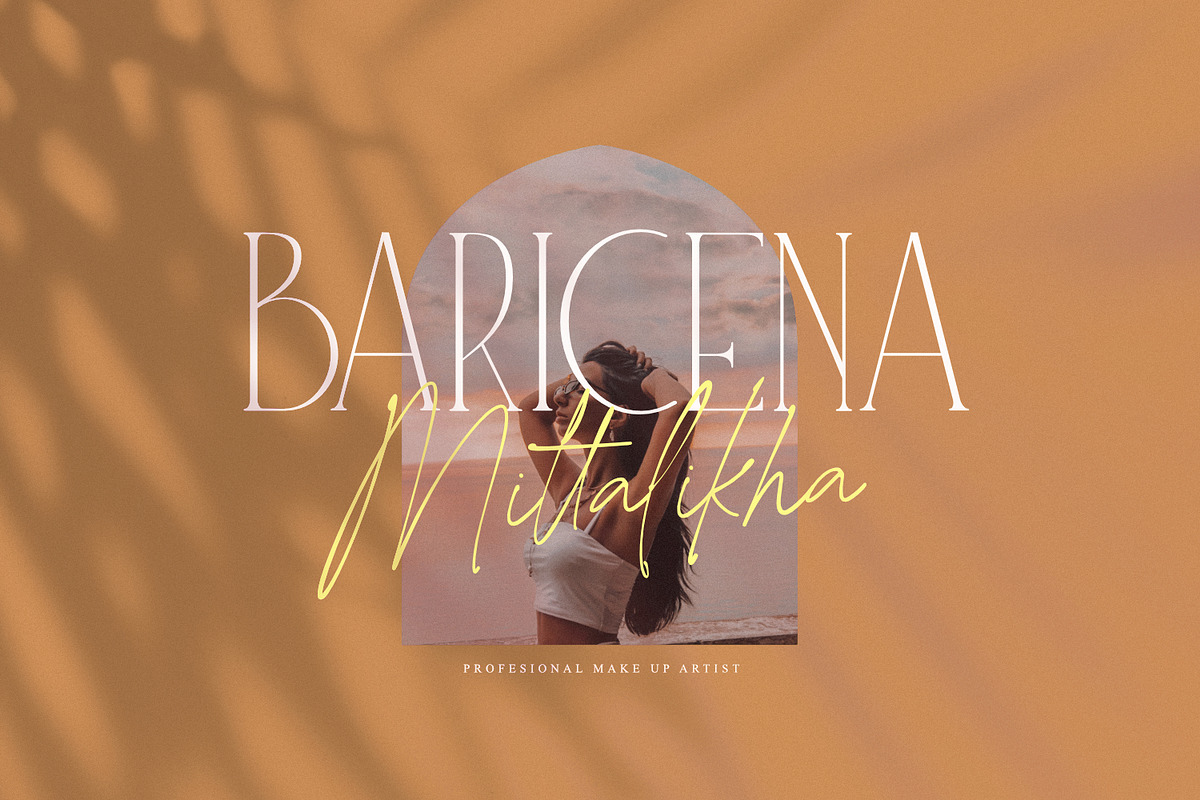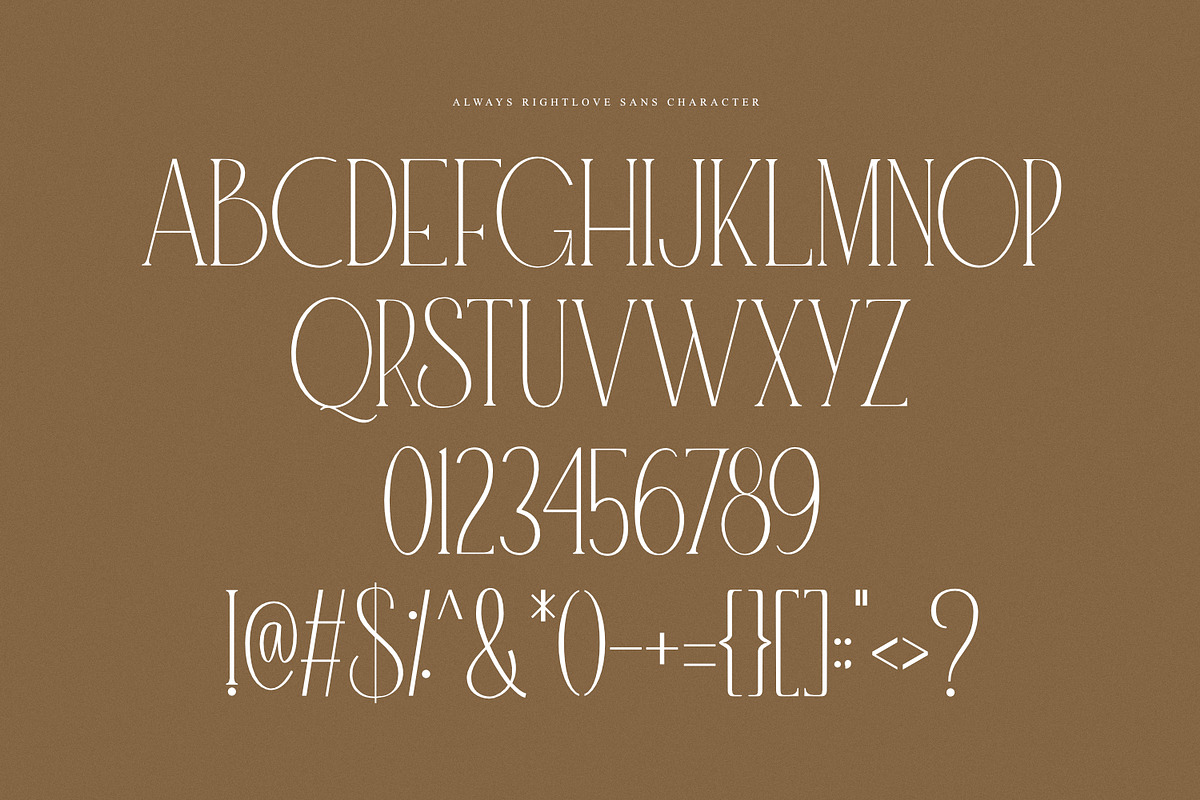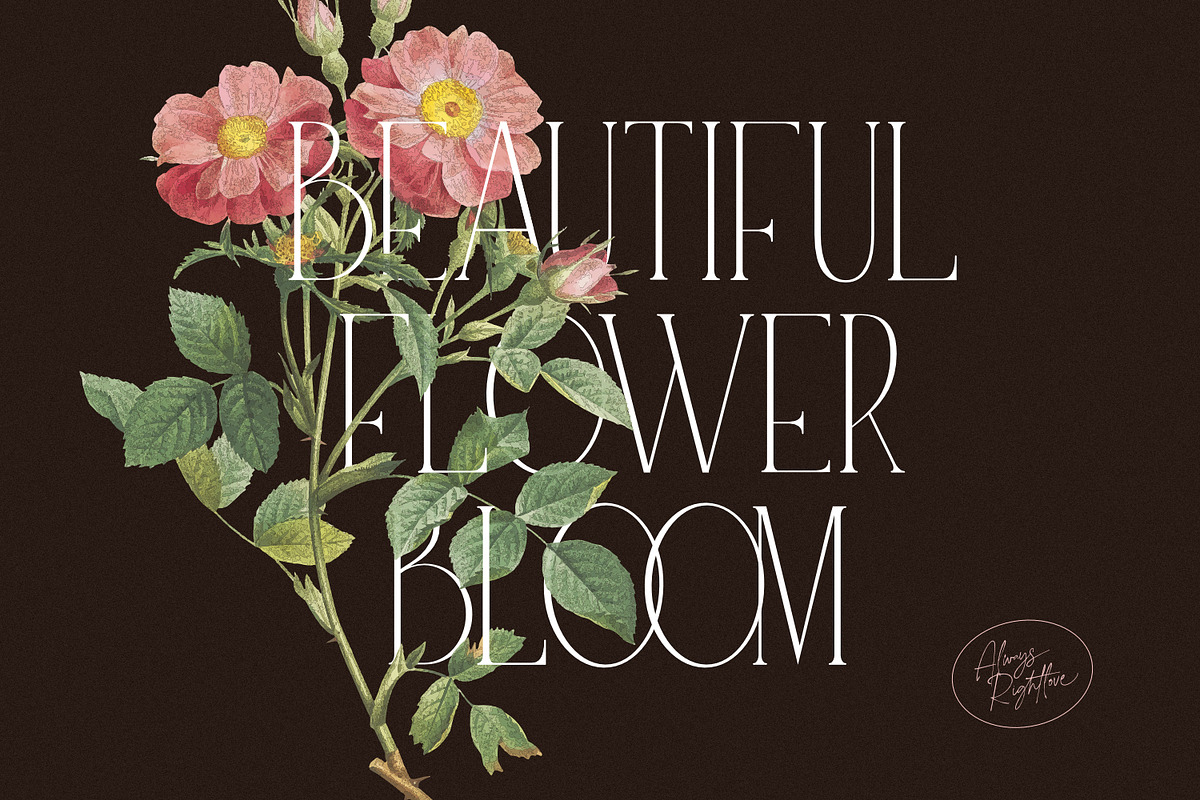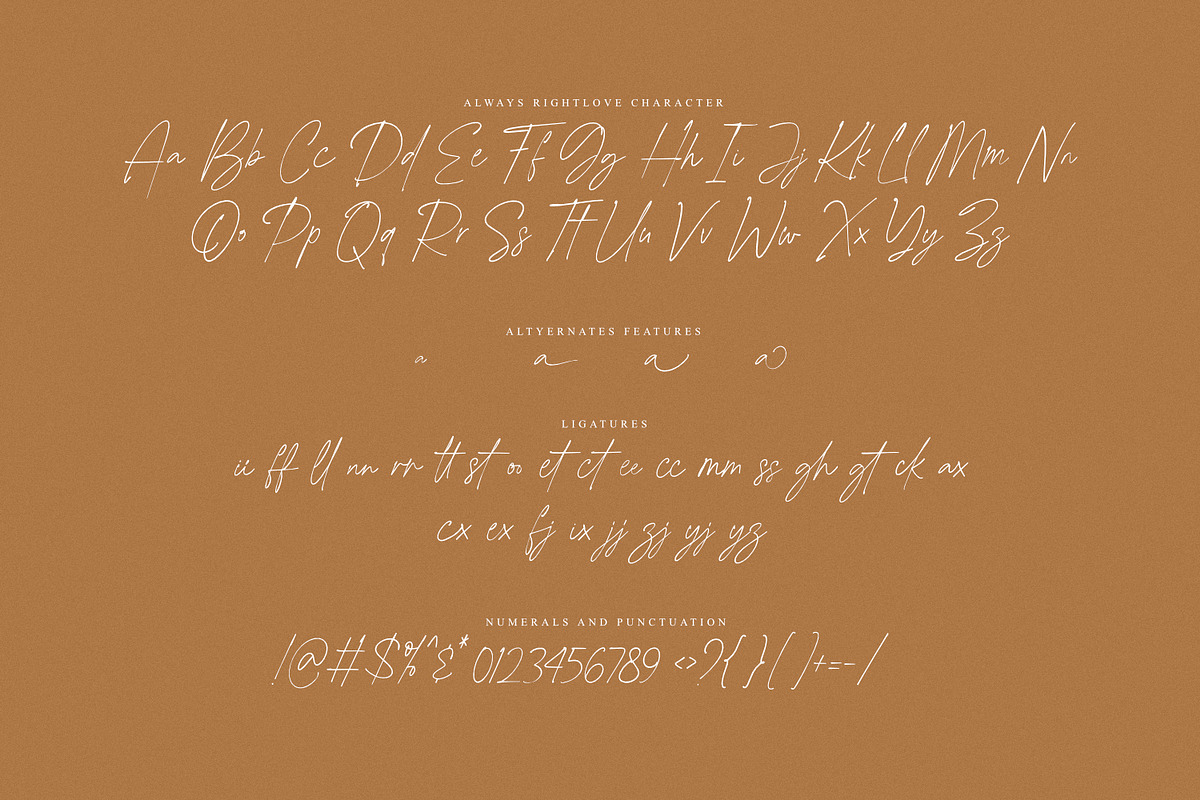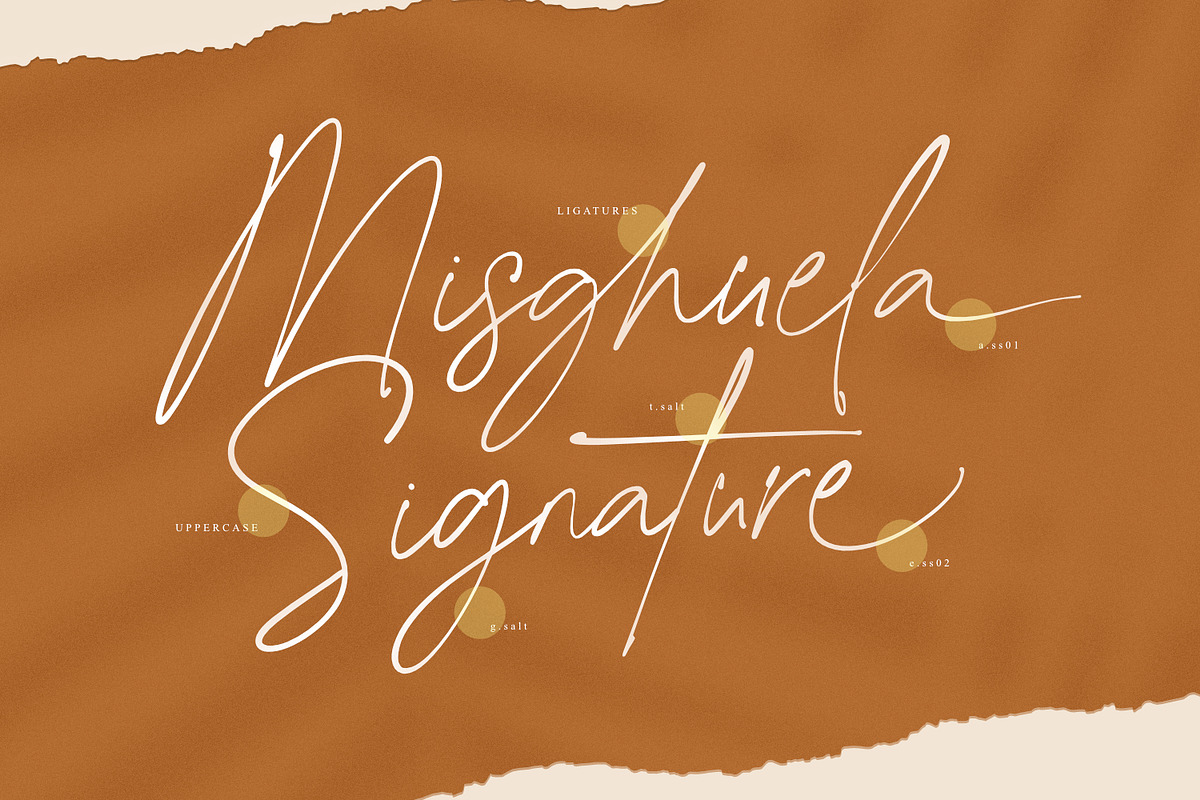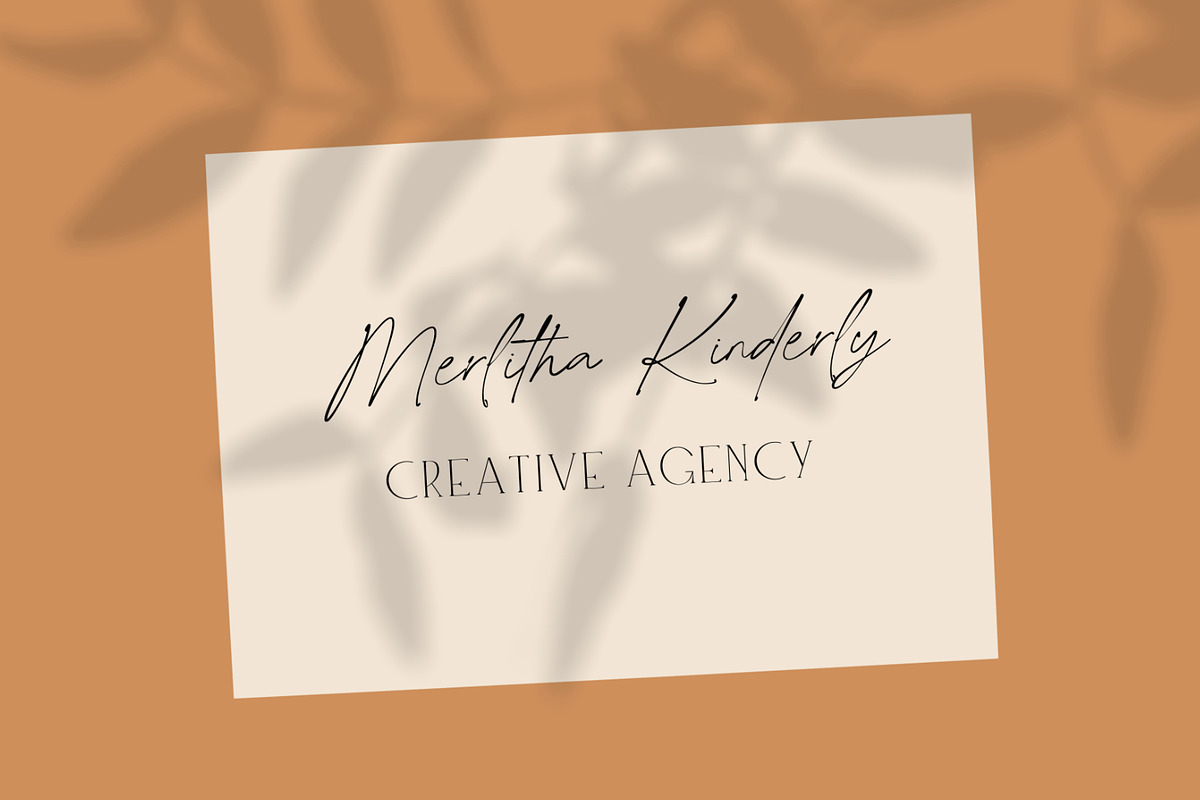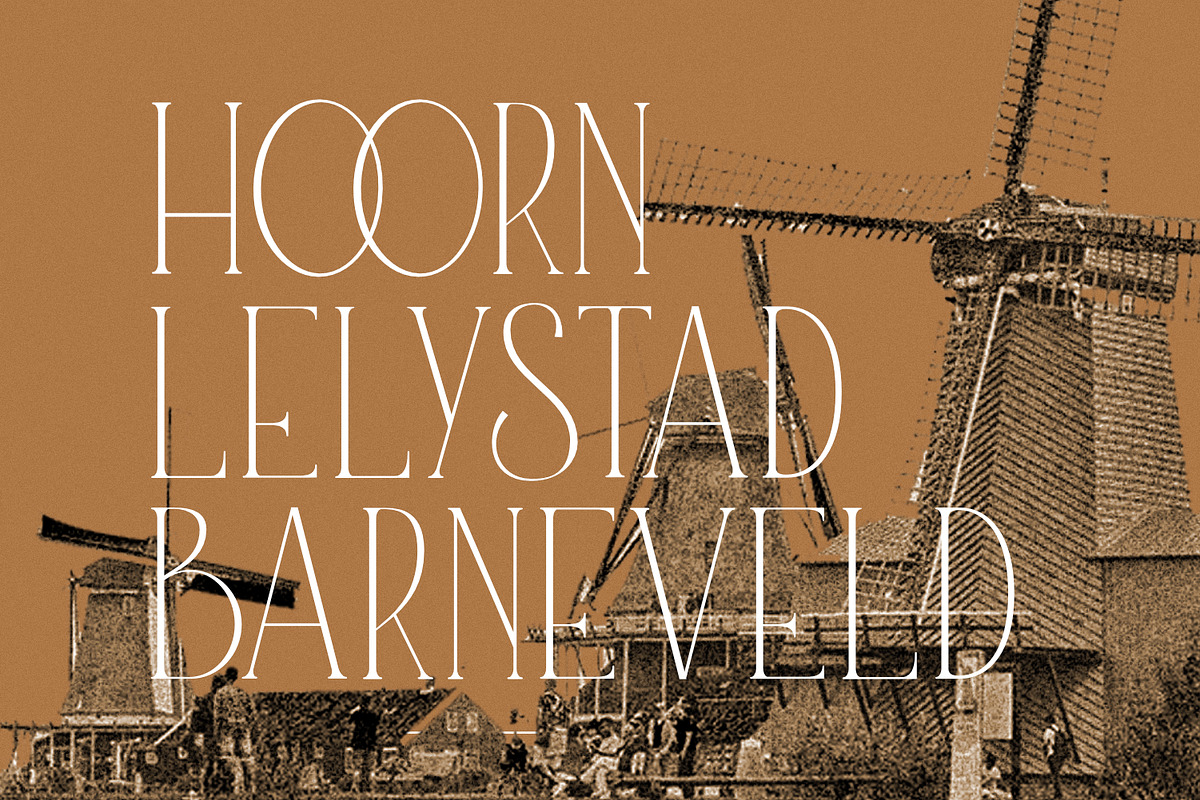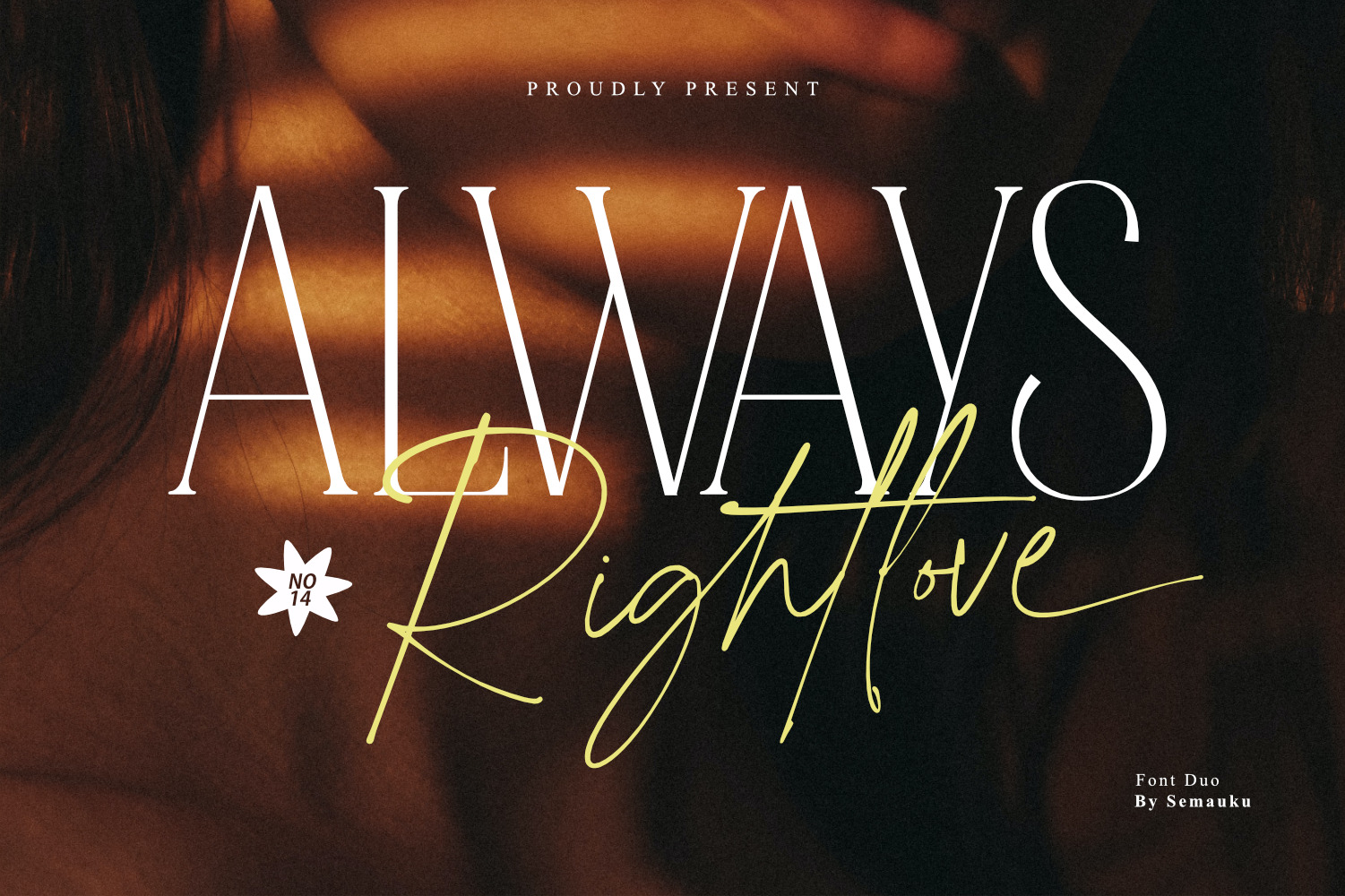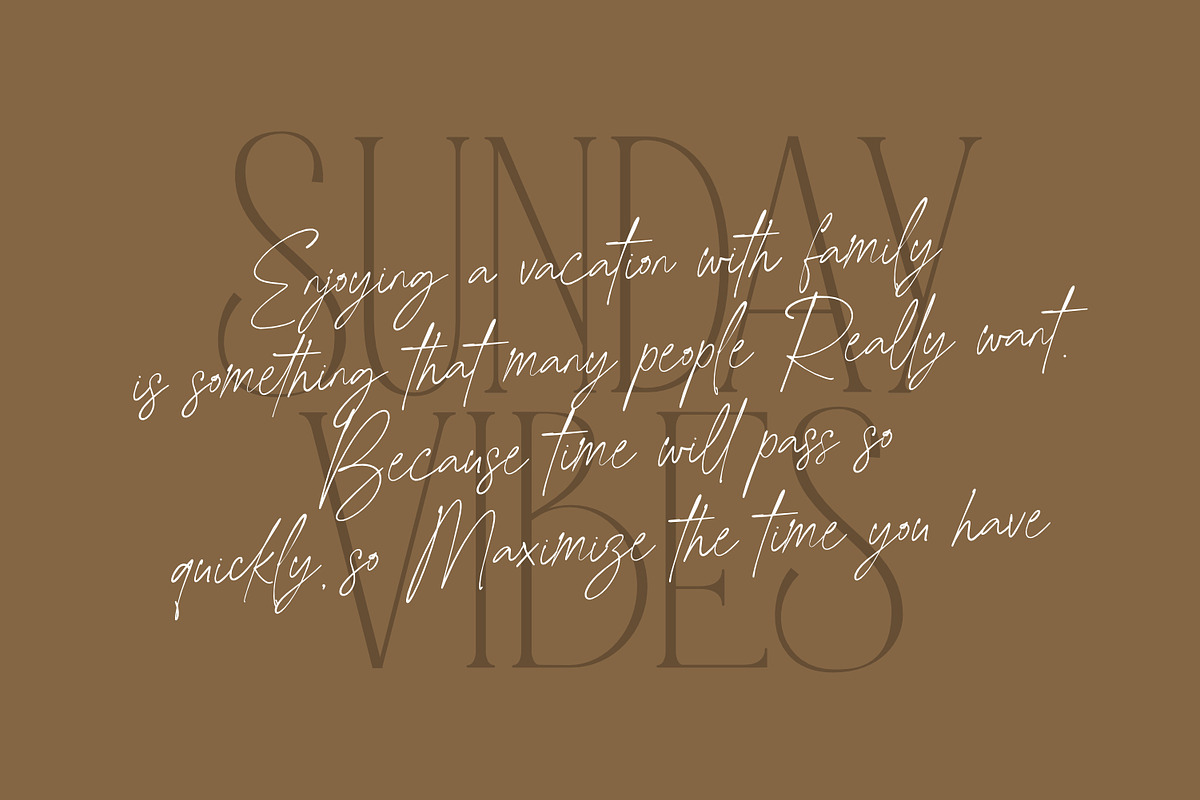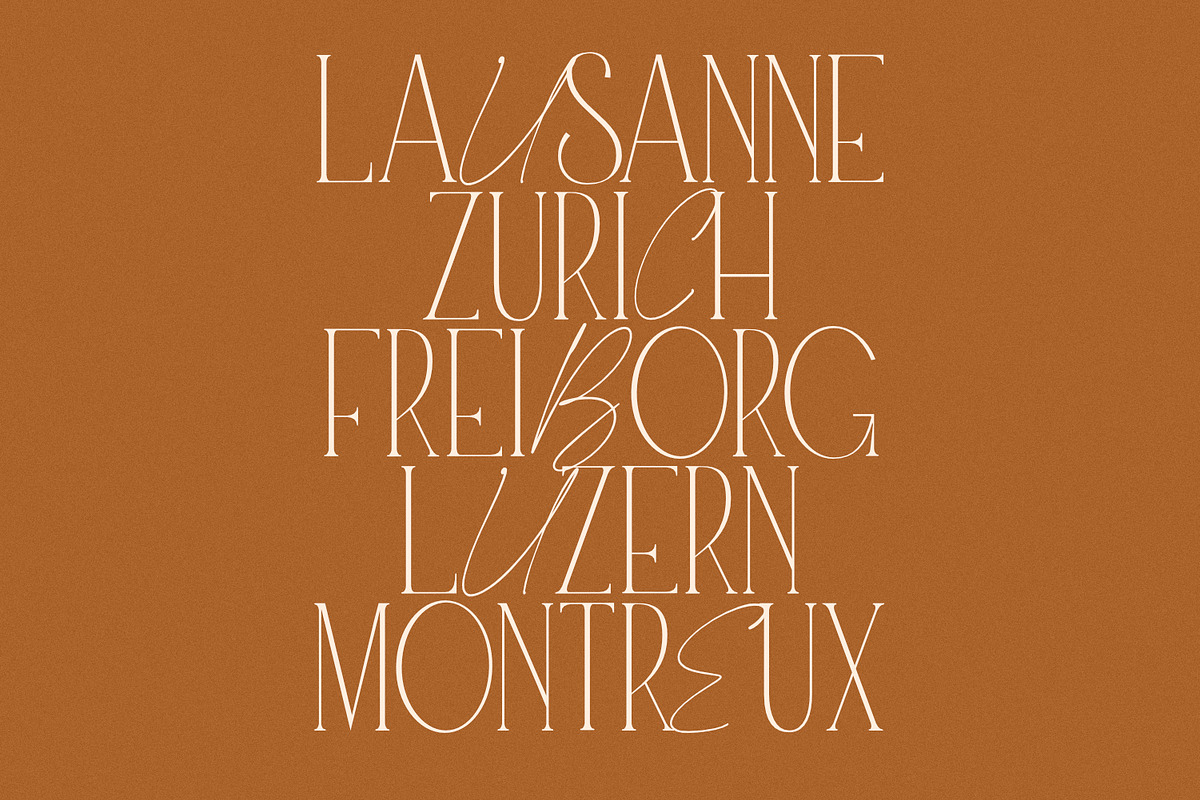
Always Rightlove - Font Duo
Always Rightlove is a font duo, pairing of two different typefaces. The Always Rightlove sans-serif font is a clean and modern font that is easy to read, while the Always Rightlove script font is a more decorative and elegant font that is often used for headlines or titles. The combination of the two fonts can be used to create a cohesive and polished aesthetic design. The Always Rightlove sans-serif font provides a contrast to the script font, giving the design a balance and making it easy to read. Always Rightlove script font is a font that is designed to look like handwriting, it can also be used to give a personal touch to the design.
- All Caps Always Rightlove Sans
- Uppercase and Lowercase Always Rightlove Script
- Numeral
- Multilingual Language
- Alternate Always Rightlove Script